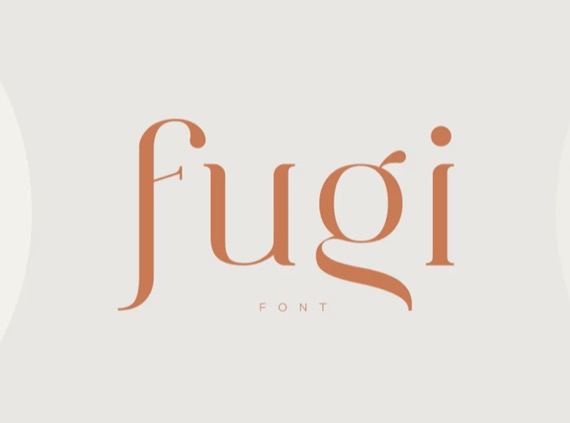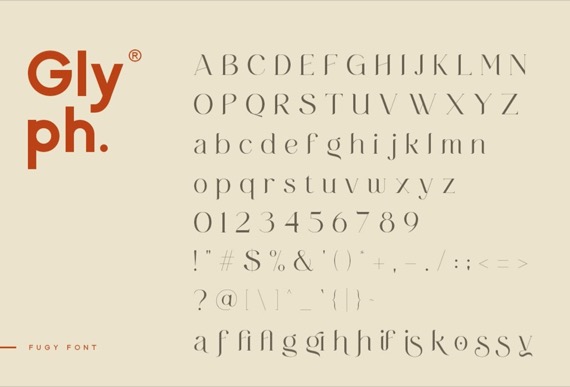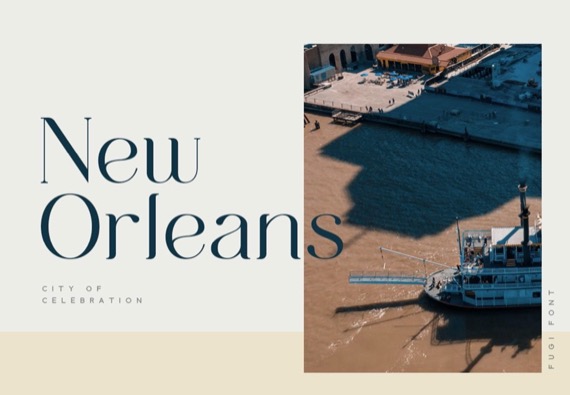
Introducing Fugi Font by Vuuuds! Fugi is a modern fashion serif font, every single letter have been carefully crafted to make your text looks unique.
Fugi Serif Font